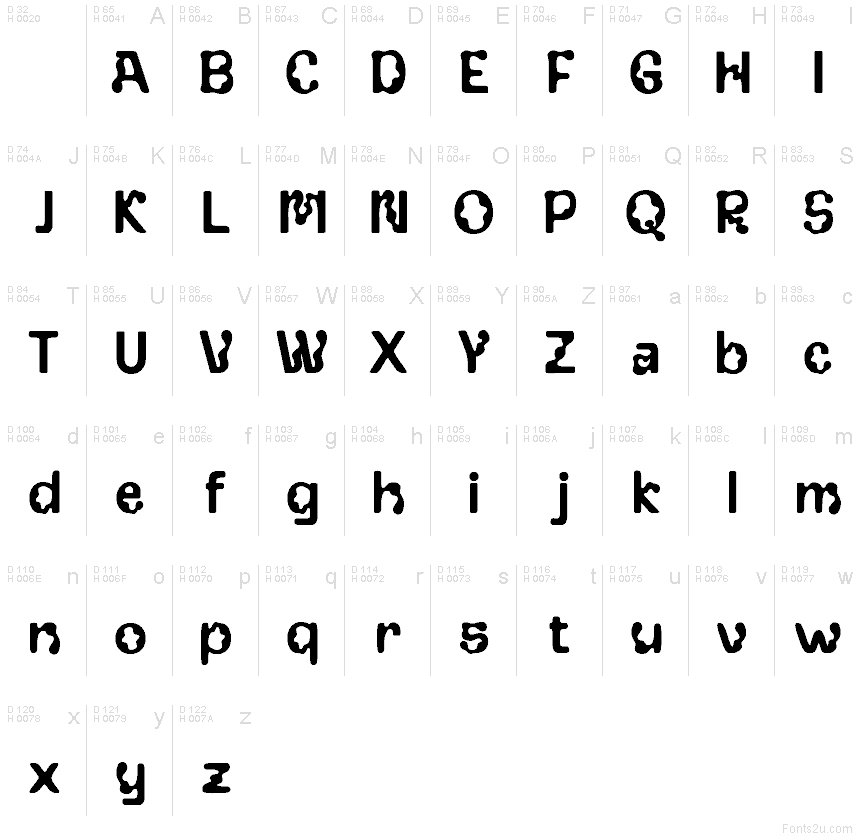
CSGrazeDrawn-Regular Demo
CS Graze Drawn font by Craft Supply Co. is a modern, distorted display typeface with abstract forms and distinctive shapes. Its irregular yet artistic design gives it an informal mood, making any text stand out in an unorthodox way. The free font was influenced by nature and every line exhibits a unique silhouette that would be impossible to recreate all over again.
Combine CS Graze Drawn with logotype designs, posters, banners, advertisements, websites, magazines covers and spreads, social media posts and any medium of your choice where you want to keep things light! Any brand (clothing or non-clothing) that wants to come across as unique should consider using this font in their mock-ups.